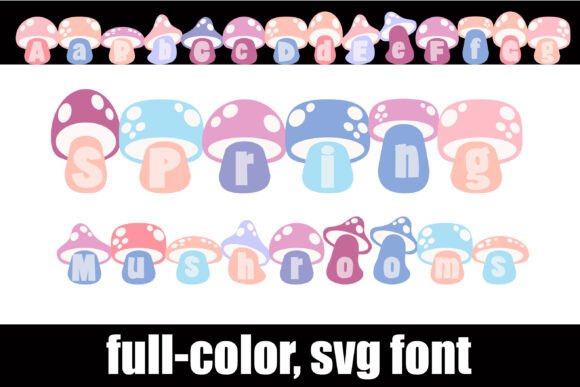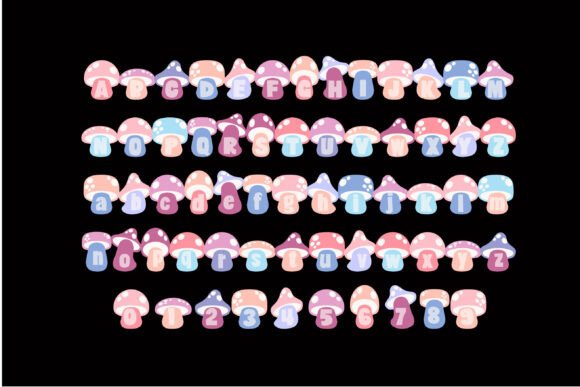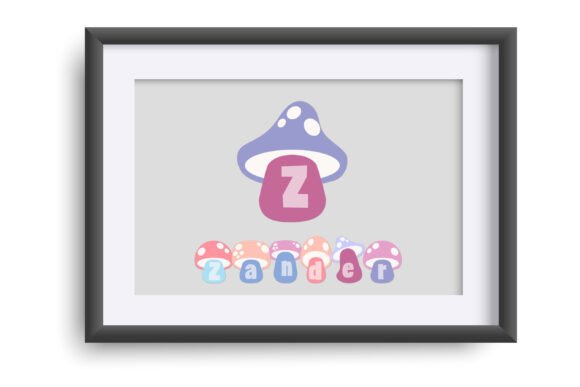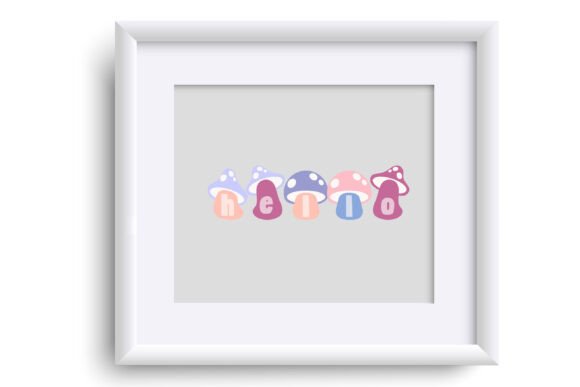
Spring Mushrooms Font
About the Spring Mushrooms Font
We are excited to introduce Spring Mushrooms Font, a must-have typeface for any serious designer. This full-color font features pastel-colored mushrooms with lettering. There is an alt case of additional colors of each letter that you can access through your system or Silhouette’s glyph map. Access a bunny and chick by typing the greater than and less than glyphs.